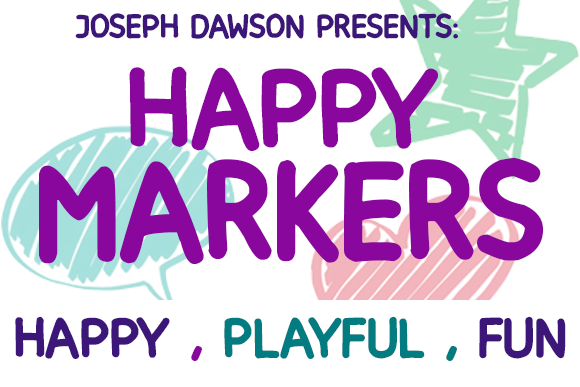
Introducing Happy Markers Font: The Perfect Addition to Your Design Projects
Are you tired of using the same old fonts in your design projects? Look no further than Happy Markers Font, a medium-thick sans serif font with a loose and friendly freehand style. This delightful font is perfect for adding a playful touch to any design project, and we’re excited to share its features and benefits with you.
What is Happy Markers Font?
Happy Markers Font is a unique and charming font that is sure to bring a smile to your face. Its medium-thick sans serif design gives it a friendly and approachable feel, while its loose and freehand style adds a touch of whimsy and playfulness. This font is perfect for designers and crafters who want to add a personal and creative touch to their work.
Key Features of Happy Markers Font
- Medium-thick sans serif design: Happy Markers Font features a sturdy and clean sans serif design that is easy to read and versatile enough to use in a variety of design projects.
- Loose and friendly freehand style: The font’s freehand style gives it a personal and playful touch that is sure to make your designs stand out.
- Perfect for playful designs: Happy Markers Font is ideal for designs that require a playful and creative touch, such as children’s books, party invitations, and craft projects.
Benefits of Using Happy Markers Font
So why should you choose Happy Markers Font for your design projects? Here are just a few benefits of using this delightful font:
- Adds a personal touch: Happy Markers Font’s unique and playful style adds a personal touch to your designs that is sure to make them stand out.
- Versatile: This font is versatile enough to use in a variety of design projects, from digital designs to print projects.
- Easy to read: Despite its playful style, Happy Markers Font is easy to read and understand, making it perfect for designs that require a clear and concise message.
Design Project Ideas Using Happy Markers Font
So what can you create with Happy Markers Font? Here are just a few design project ideas to get you started:
- Children’s books: Happy Markers Font is perfect for children’s books, adding a playful and engaging touch to your story.
- Party invitations: Use Happy Markers Font to create fun and playful party invitations that are sure to get your guests excited.
- Craft projects: Happy Markers Font is ideal for craft projects, such as DIY signs, labels, and cards.
- Digital designs: Use Happy Markers Font in your digital designs, such as social media graphics, blog posts, and email newsletters.
Tips for Using Happy Markers Font
Here are a few tips for using Happy Markers Font in your design projects:
- Pair with other fonts: Happy Markers Font pairs well with other fonts, such as serif fonts and script fonts.
- Use in moderation: While Happy Markers Font is playful and fun, it’s best to use it in moderation to avoid overwhelming your design.
- Experiment with colors: Happy Markers Font looks great in a variety of colors, so don’t be afraid to experiment and find the perfect color for your design.
| Font Name | Happy Markers Font |
| Author | Joe Dawson |
In conclusion, Happy Markers Font is a delightful and playful font that is perfect for adding a personal and creative touch to your design projects. With its medium-thick sans serif design and loose and friendly freehand style, this font is sure to bring a smile to your face and make your designs stand out. So why not give Happy Markers Font a try and see the difference it can make in your designs?